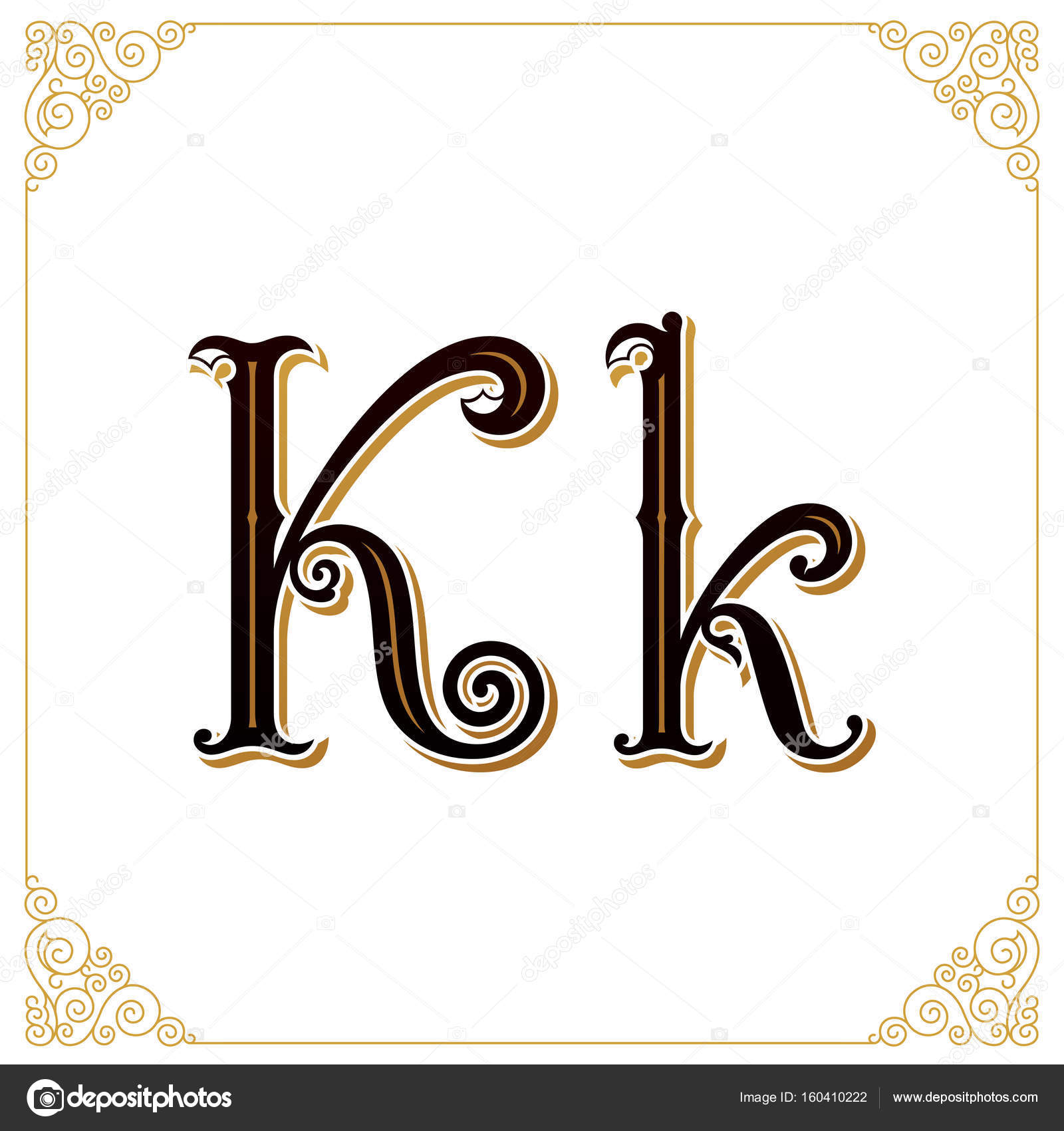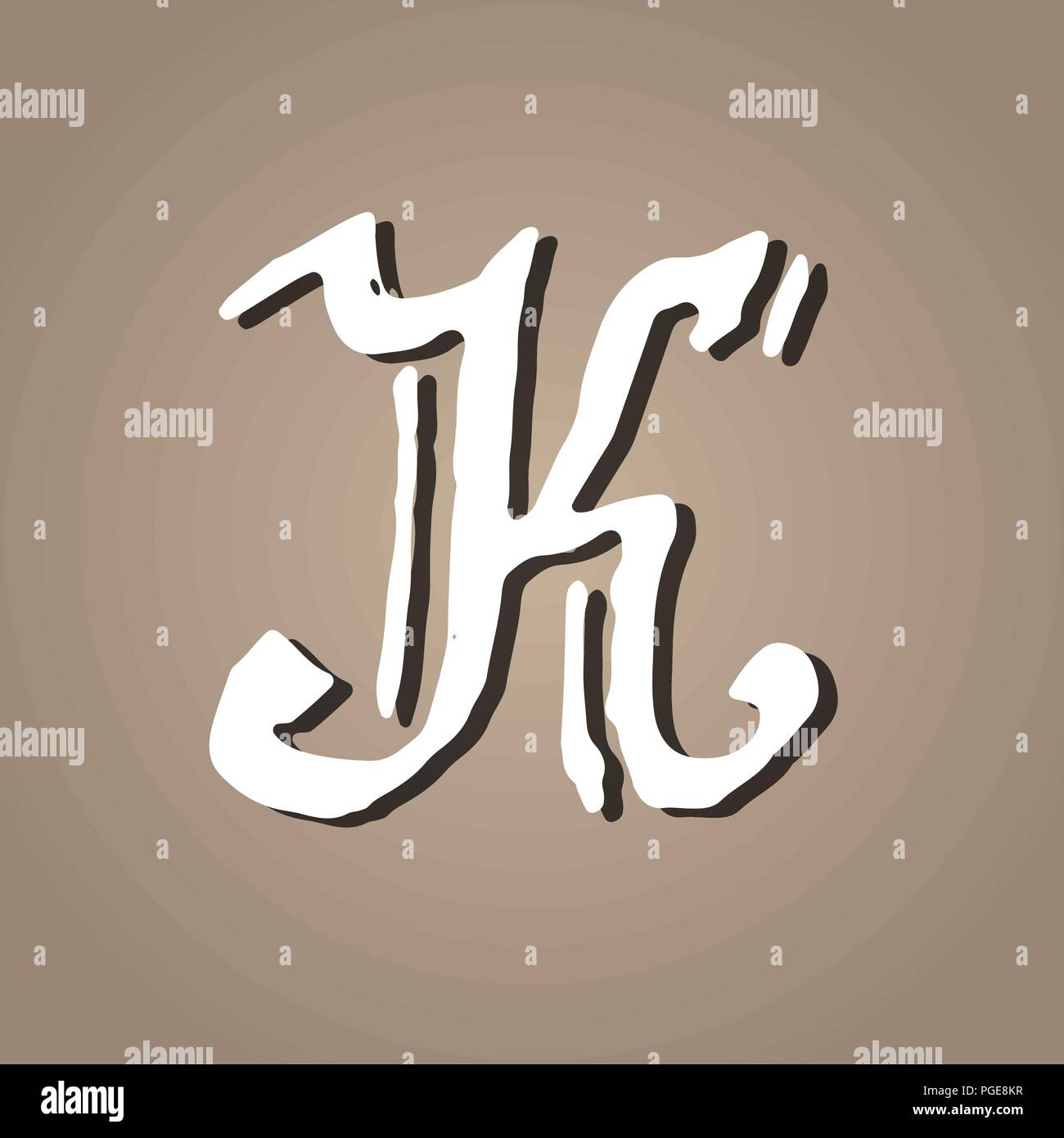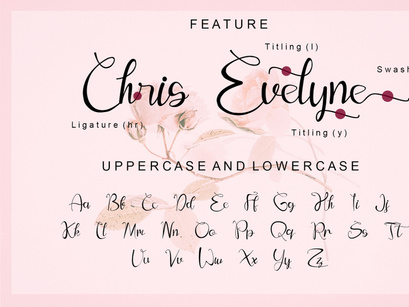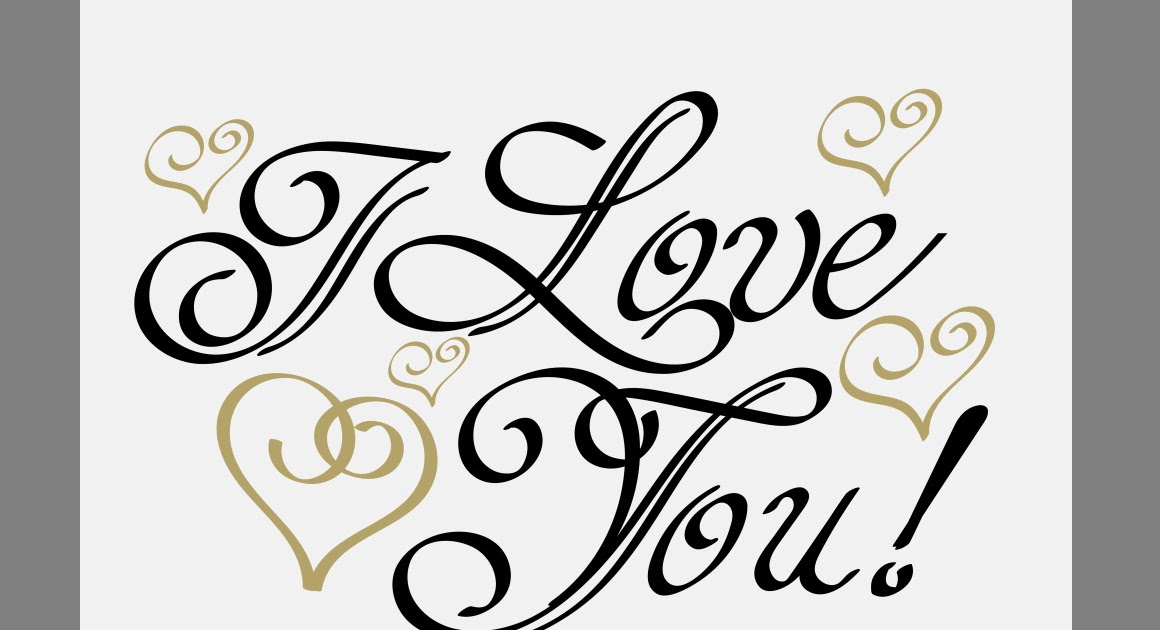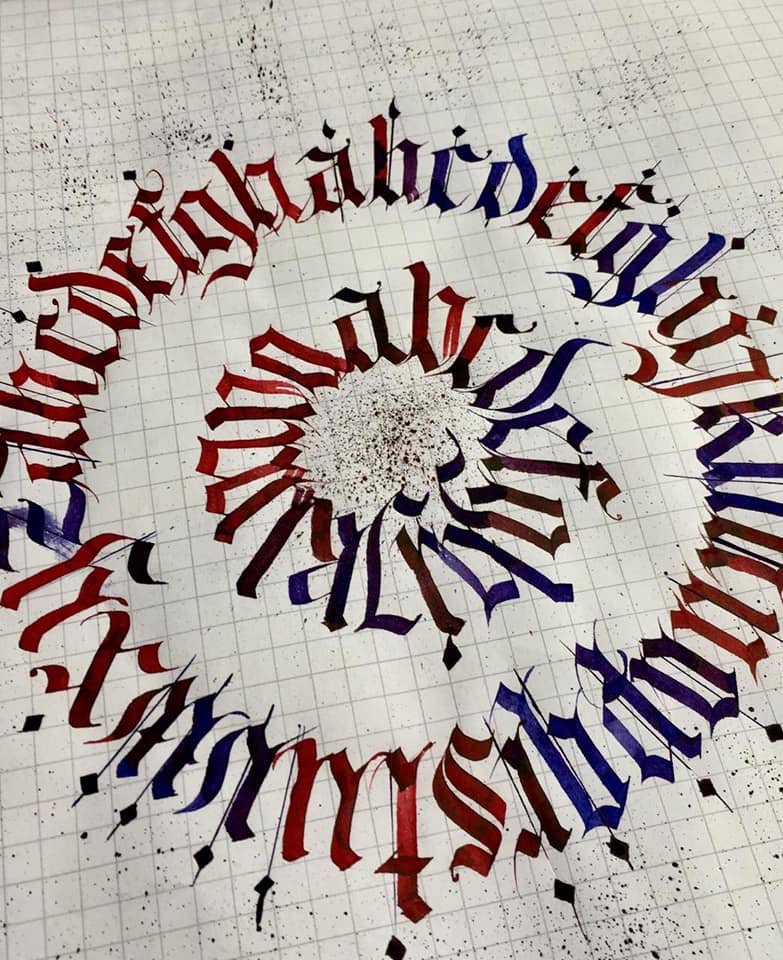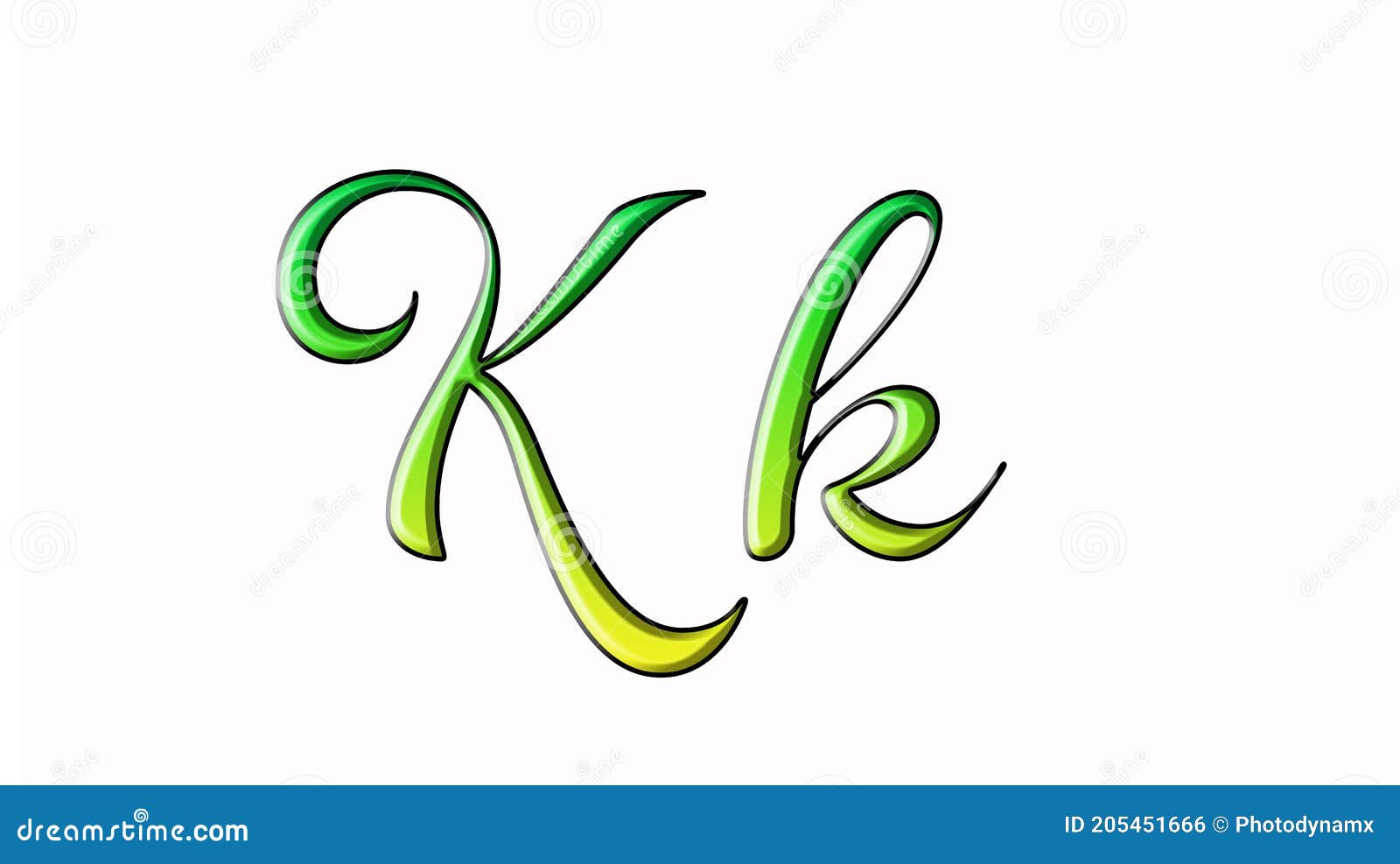
Calligraphy fonts are widely used in wedding event invitations original logo design religious art films TV etc. Burgues Script created by Alejandro Paul is a typical font family of calligraphy style. Get started for free.
1001 Free Fonts offers the best selection of Calligraphy Fonts for Windows and Macintosh. The writing is readable but is usually extravagant and embellished with flourishes. The height of calligraphy was reached in the middle age where monks developed the narrow writing style called gothic allowing more words to fit on a single line as paper was expensive at the time.
Calligraphy fashion script modern display logo handwritten elegant magazine lettering casual branding wedding packaging cursive poster invitation handwriting feminine beautiful alternates advertising vintage romantic ligatures. Replaces a sequence of glyphs with a single glyph which is preferred for typographic purposes. This feature covers those ligatures which may be used for special effect at the users preference.
Lamar pen is a stunning calligraphy font designed by Mirabeau Buonaparte Lamar is a fascinating style with words combining in an elegant and stylish way. Chinese Jpn Arabic Mexican Roman Greek Russian Various. The glyph for ct replaces the sequence of glyphs c t or U322E Kanji ligature for Friday replaces the sequence U91D1 U66DC U65E5.
Transform your handwriting or. Calligraphy is an ancient writing technique using flat edged pens to create artistic lettering using thick and thin lines depending on the direction of the stroke. This style can end up looking very similar to hand-lettered fonts but the difference is that calligraphy is written and not drawn.